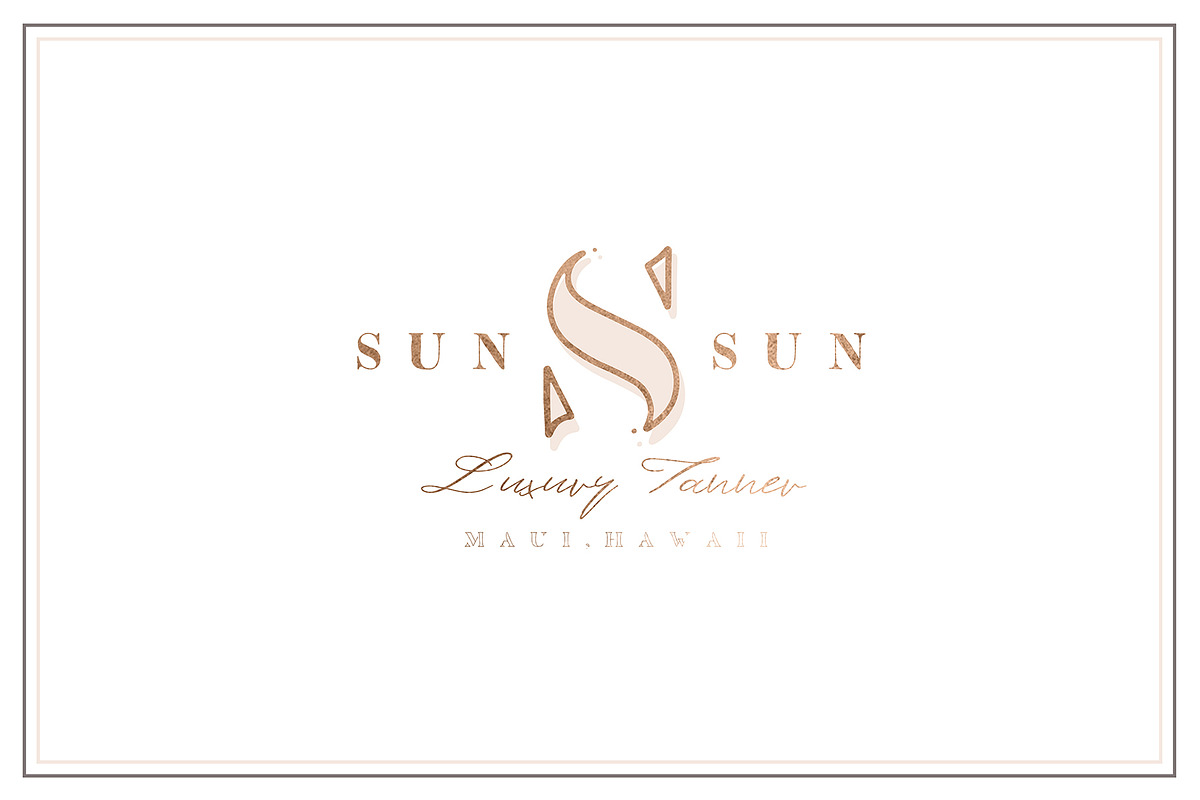
Edenton Serif
Edenton Serif: My take on a feminine chic military stencil. This font has a total of six variations.
All 6 styles include: Uppercase, Lowercase, Numbers & Special Characters.
No˚1- Regular Serif
No˚2- Italic Serif
No˚3- Feminine Line Stencil Serif
No˚4- Feminine Stencil Serif
No˚5- Italic Feminine Stencil Serif
No˚6-Italic Feminine Line Stencil Serif